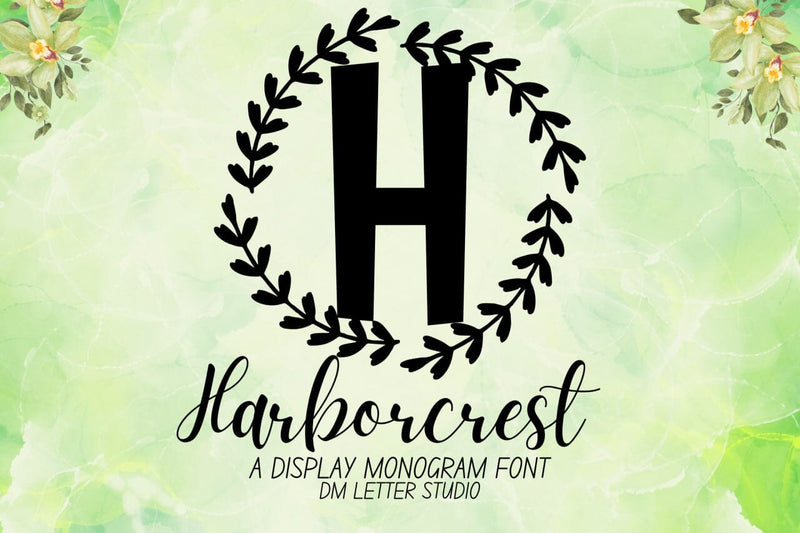
Harborcrest Monogram Font
Meet Harborcrest, the Monogram Font
Harborcrest Monogram Font turns simple initials into poised, coastal-elegant emblems. Strokes feel smooth and confident. Generous counters keep tiny tags readable, while balanced proportions deliver a premium look at any size. Use it for wedding suites, boutique logos, keepsake gifts, foil seals, and premium packaging. In addition, Harborcrest pairs beautifully with refined serifs and quiet humanist sans fonts, so layouts stay polished without extra work.
Where this monogram font shines
Set single, double, or triple initials for logos, seals, menus, and place cards. Then frame them with rope circles, oval borders, fine rules, or laurel rings to echo the calm geometry. Since the metrics favor symmetry and clarity, centered compositions come together in minutes. As a result, thumbnails pop on marketplaces and your listings feel consistent from invitations to signage. Harborcrest also scales smoothly from jewelry cards to entry displays, which makes it ideal for event décor and retail packaging.
Design tips for Harborcrest Monogram
Keep initials large and let white space breathe. Pair the headline monogram with a soft serif for body text or a clean sans for labels and dates. Add micro shadows, a fine inner stroke, or a delicate frame for depth. Because the forms are airy and balanced, textured papers and metallic accents raise perceived value. However, keep copy short so the monogram remains the hero, especially on favors, tags, and wax seals.
Select stylistic alternates for key letters
Curves tuned for foil, letterpress, engraving, laser cutting, and clean vinyl paths
Why creators choose Harborcrest
You want elegance that reads at a glance and sells across many product types. Harborcrest Monogram Font delivers steady clarity, quick layout, and a cohesive brand voice from invites to packaging and gifts.